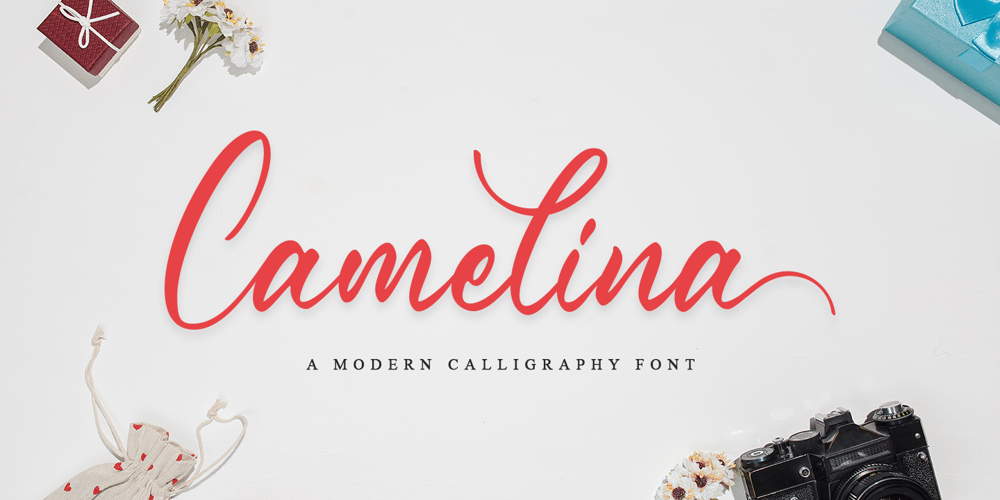
Camelina Font Family was designed by Novia Himatunnisa and published by Nissa Nana. Camelina contains 1 styles and family package options. Camelina is a delicate, elegant, and flowing handwritten font. It has beautiful and well-balanced characters and as a result, it matches a wide pool of designs.